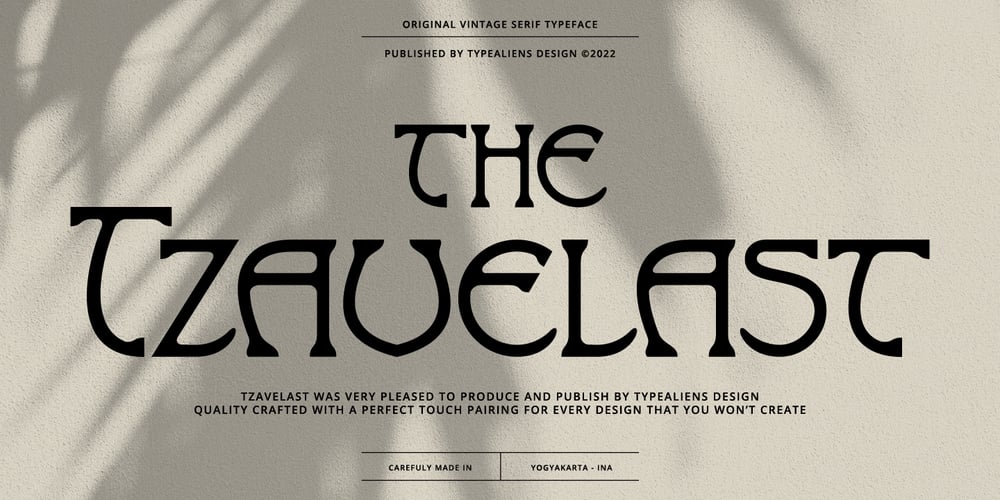
Tzavelast Font Family was designed by Ilham Wahyu and published by Ilhamtaro. Tzavelast contains 1 styles and family package options. TZAVELAST is a vintage font with a serif base. But even though it’s vintage, it’s also suitable for modern designs. Also suitable for headlines, social media design and branding.To enable the OpenType Stylistic alternates, you need a program that supports OpenType features such as Adobe Illustrator CS, Adobe Indesign & CorelDraw X6-X7.Cheers!